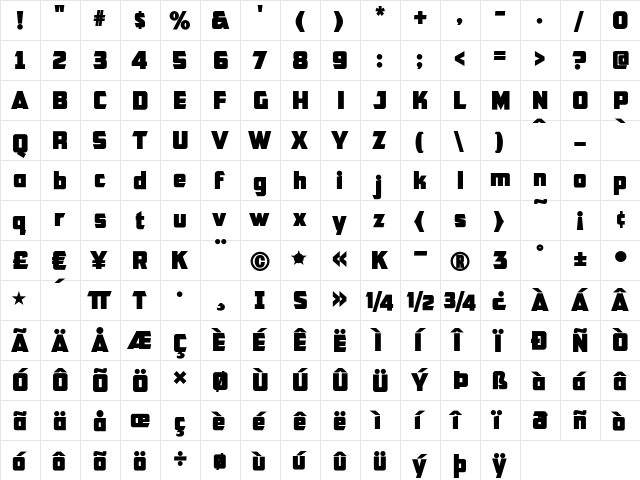
CFB1 American Patriot SPANGLE 2 Regular
Design Context for CFB1 American Patriot SPANGLE 2 Typeface
CFB1 American Patriot SPANGLE 2 is a composed and adaptable typeface that performs quietly and consistently across a wide range of design contexts.